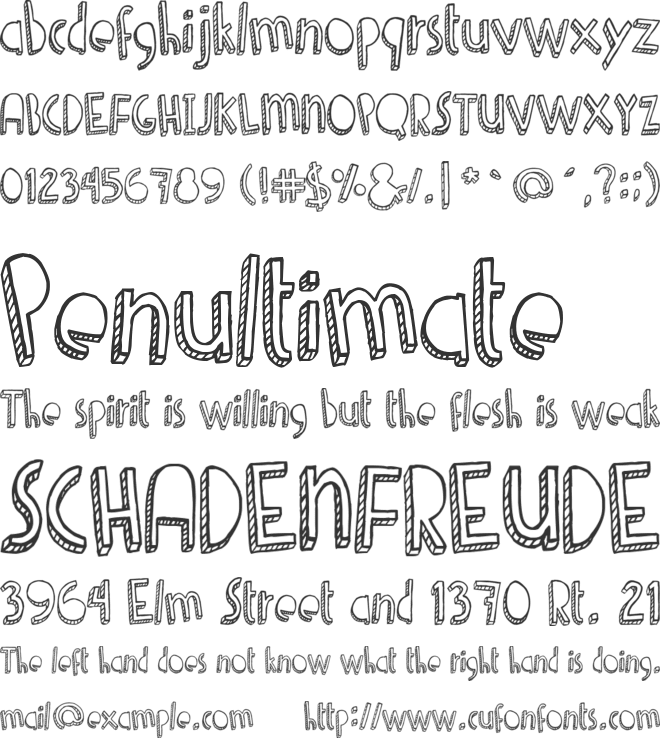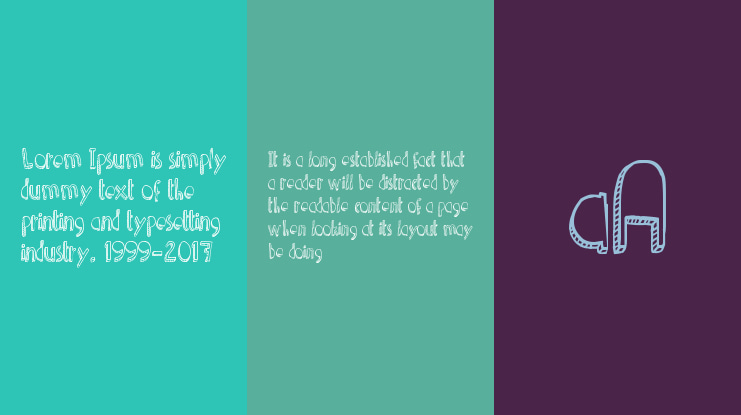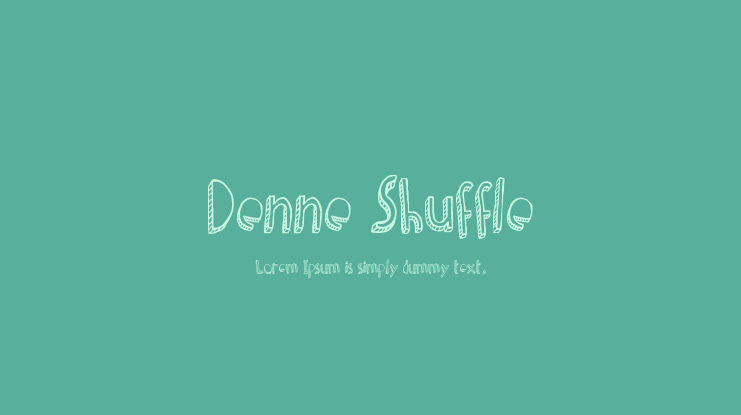
Denne Shuffle Font
the only font i did during my sem break T___________T so basically it's another handwritten 3D font with no holes (to save on ink!).
spent 3 days making this, i wrote everything down using a tablet this time.
added a few other useful characters as well (°, ñ, è, é, , etc)